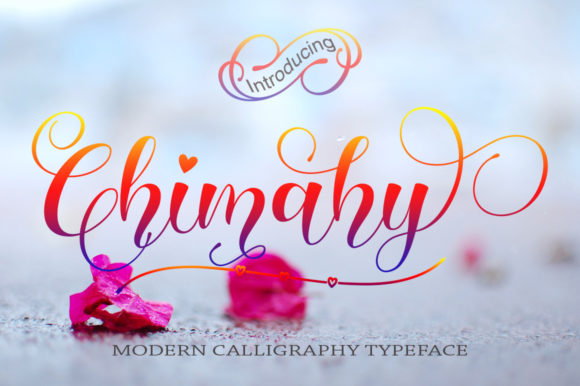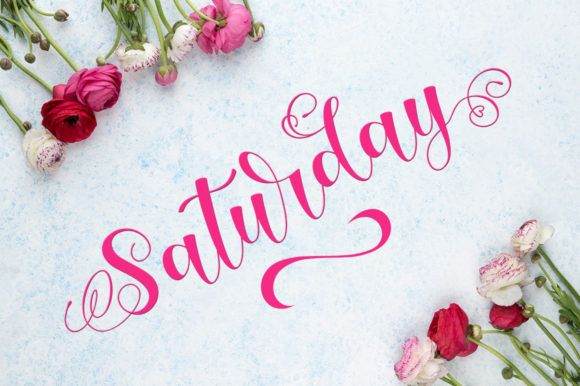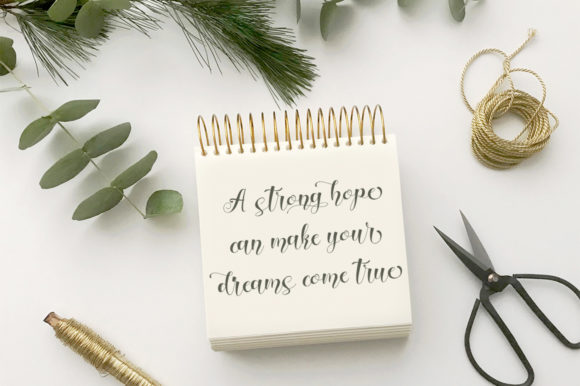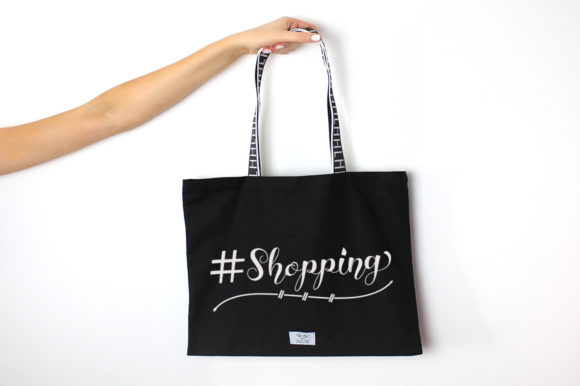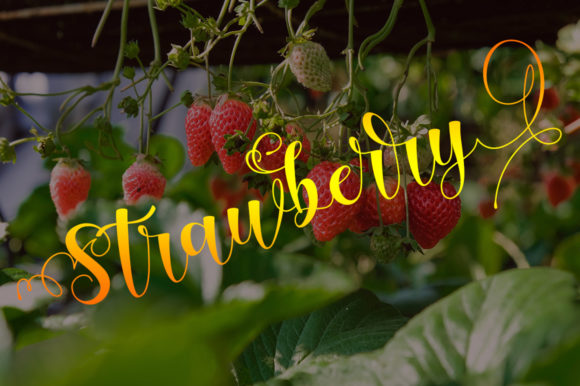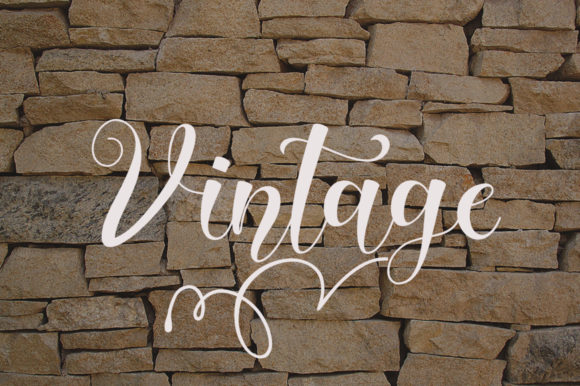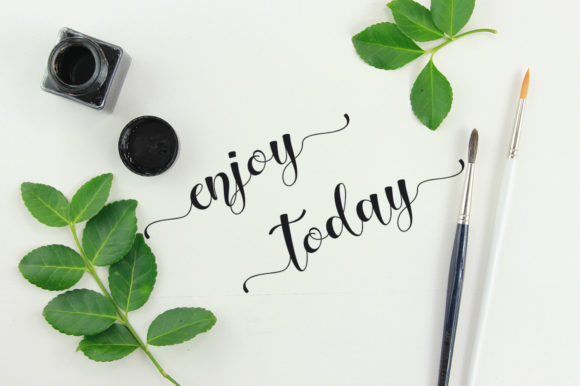
Chimahy Font
About Chimahy Font
Chimahy merges a varied base line and fine line with classic and elegant touches, making it an incredibly charming script.